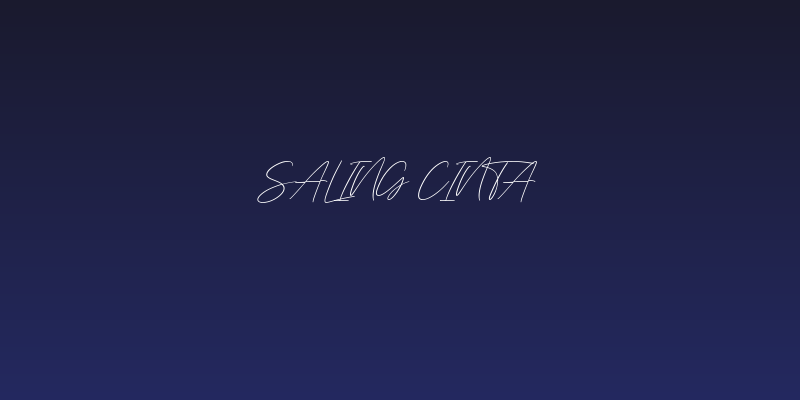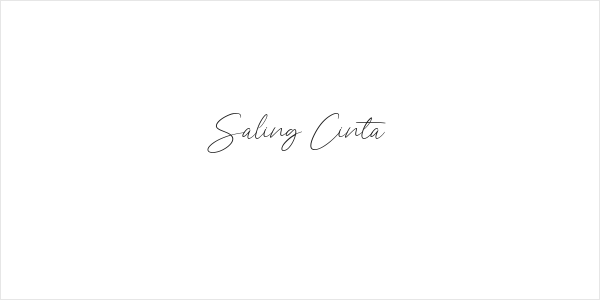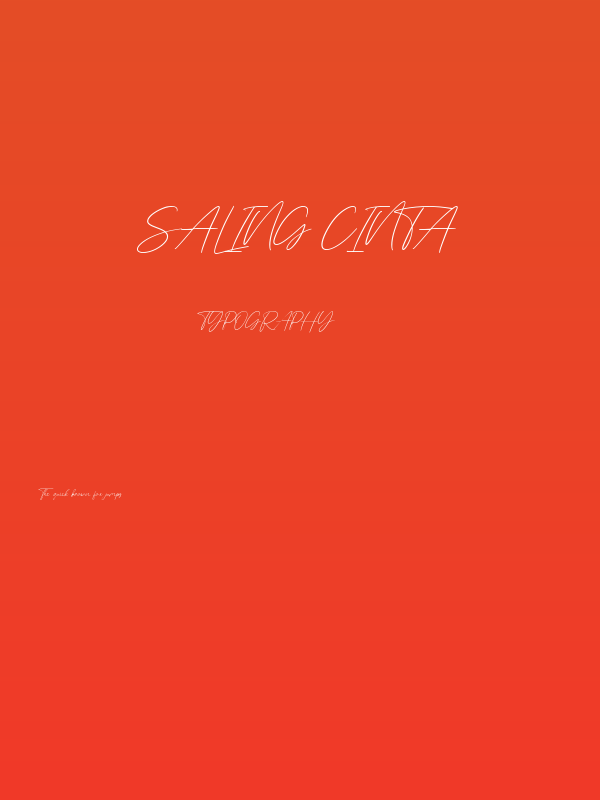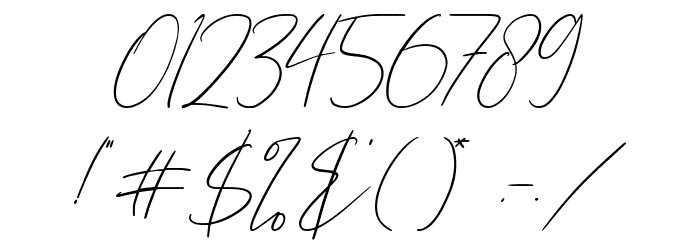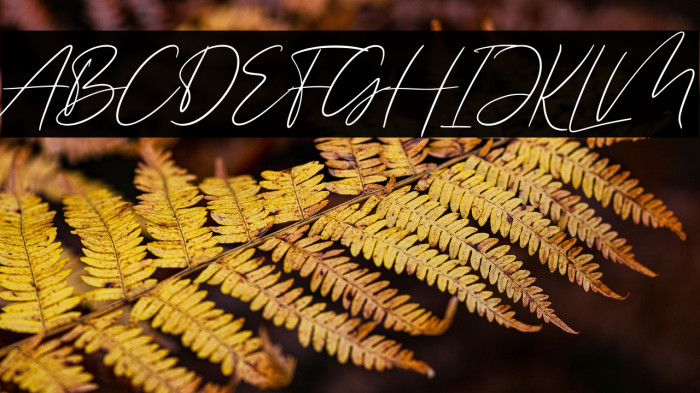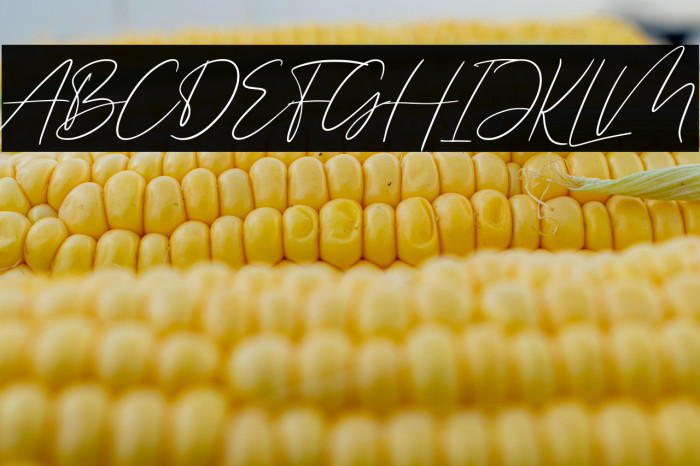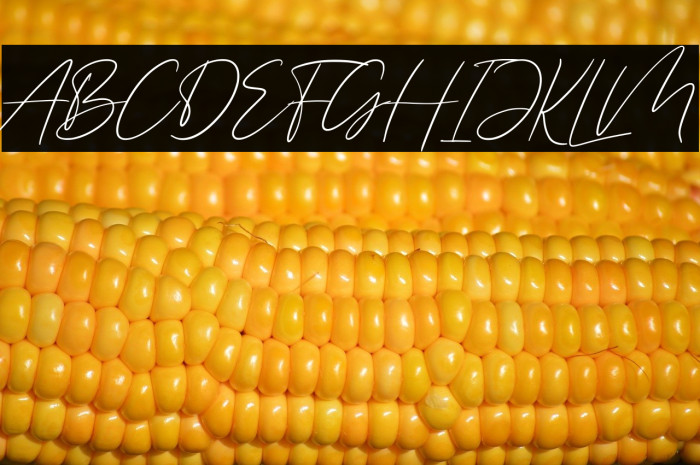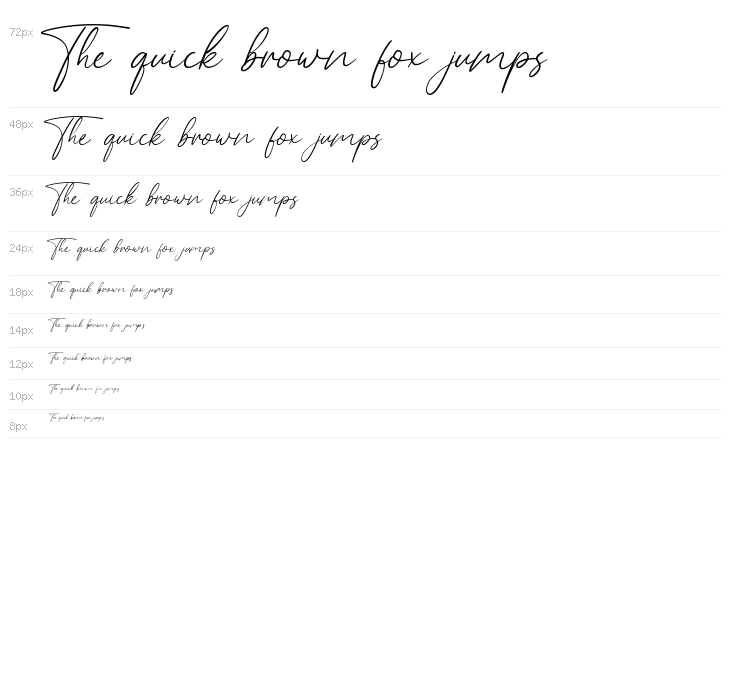
Saling Cinta Font
Saling Cinta Description
This font features a flowing, cursive style with elegant, elongated strokes that give it a sophisticated and artistic appearance. The letters are interconnected, creating a seamless and fluid look that mimics natural handwriting. The uppercase letters are bold and prominent, while the lowercase letters maintain a delicate and graceful form. The numerals and special characters are designed to complement the overall aesthetic, maintaining the same fluidity and elegance. This font is perfect for projects that require a personal touch or an artistic flair.
| Overall Style | Elegant, Artistic |
| Proposed Projects | Ideal for wedding invitations, greeting cards, personal branding, and artistic projects. |